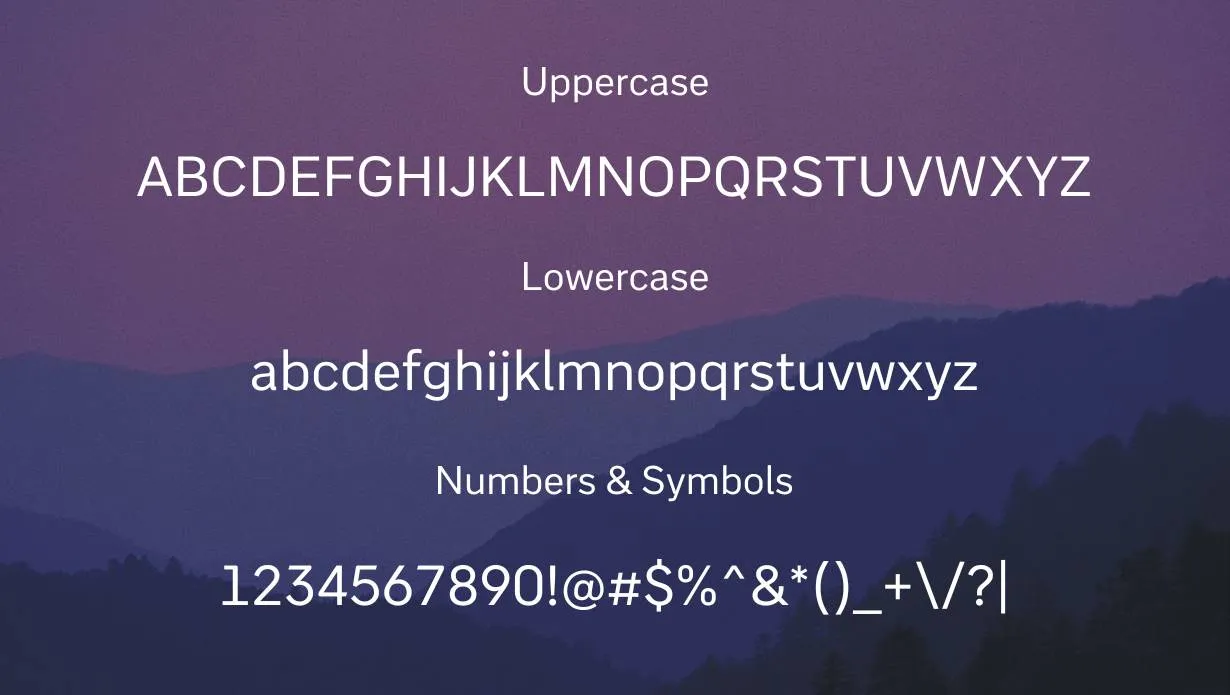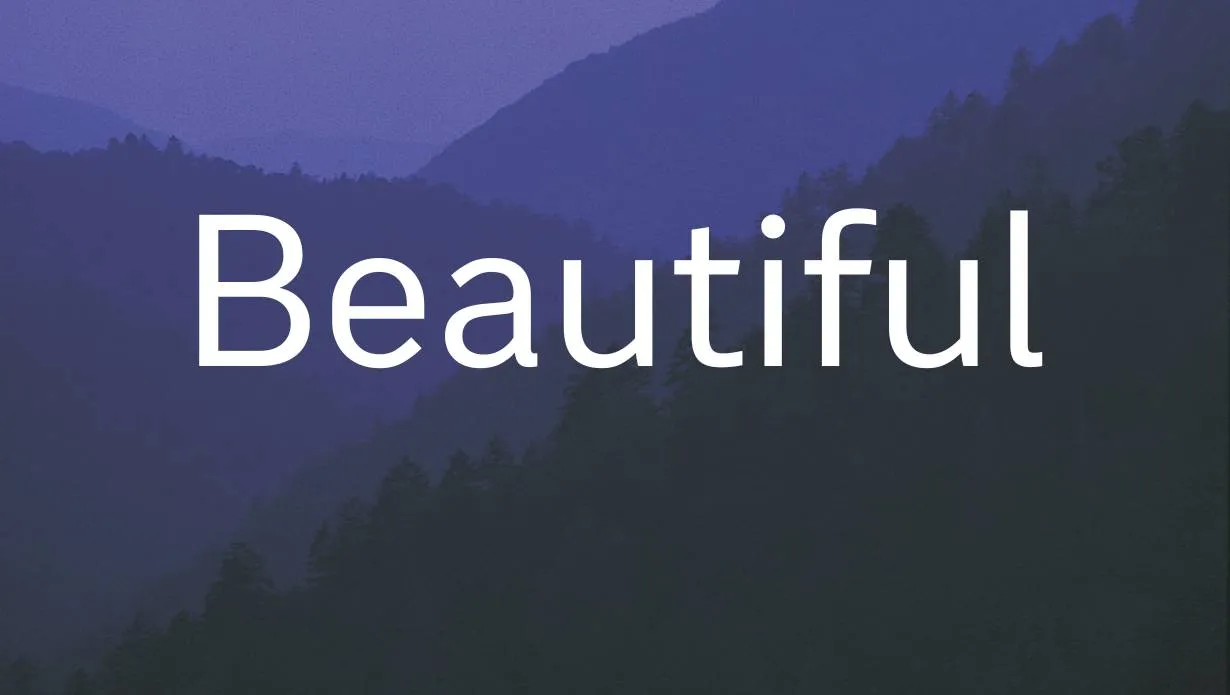
Publik Font is designed by Essen International it is a sans serif typeface. Due to its sharp-looking characters, it is ideal for lively style and athletic game design objectives. This font’s versatility makes it appropriate for projects that need appealing text design.
It has sets of lowercase and uppercase basic characters, digits, and punctuation included in the typeface. Use this font for any task that needs for a loud and nice appearance.